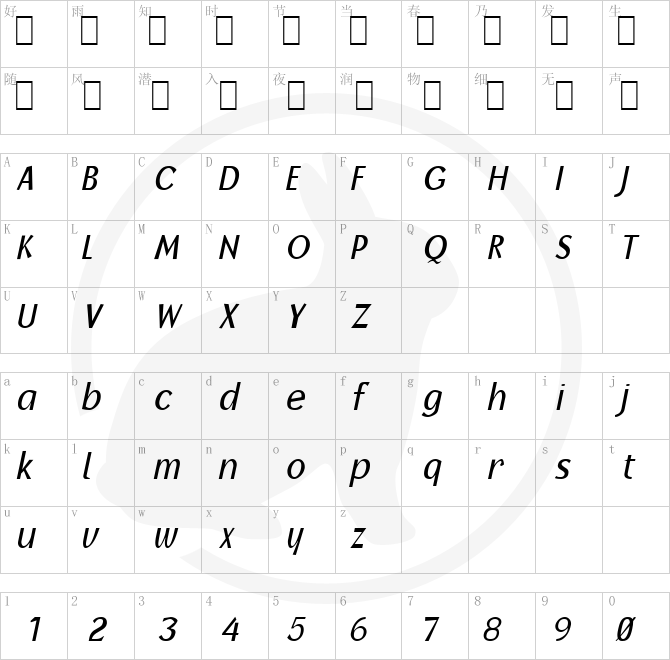
• Font Name:Oak-Ridge-Condensed
• Subfamily:Italic
• Subfamily:CSC:Oak Ridge-Condensed Italic
• Full Name:Oak-Ridge-Condensed Italic
• PostScript:Oak-Ridge-CondensedItalic
Oak-Ridge-Condensed-Italic.ttf is a very beautiful artistic font, Oak-Ridge-Condensed-Italic.ttf is widely used in the design and printing of various books and pictures,Oak-Ridge-Condensed-Italic.ttf has a strong visual impact,Oak-Ridge-Condensed-Italic.ttf is a commonly used font in newspapers, magazines and books, and is used in posters, e-commerce Poster design, store design, logo design, font design and other fields.Oak-Ridge-Condensed-Italic.